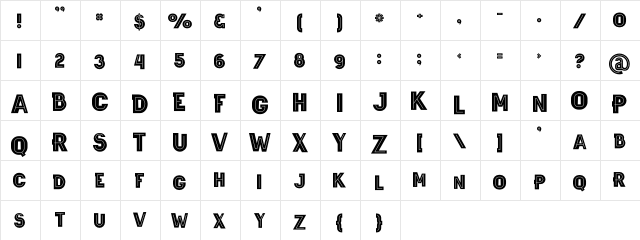
Wagoon Bold Inline Bold Inline
Design Context for Wagoon Bold Inline Typeface
Wagoon Bold Inline brings ornamental detail and strong personality to headlines and identities, where visual impact matters more than quiet functionality. Its bold stroke weight gives it real presence on the page.
Font Pairing: Pair with a clean neutral sans-serif for body copy to let Wagoon Bold Inline's character lead without overwhelming the composition.
Pro Tip: Use Wagoon Bold Inline exclusively at display sizes — it was designed to be seen, not read at length. Let a neutral companion handle body copy.